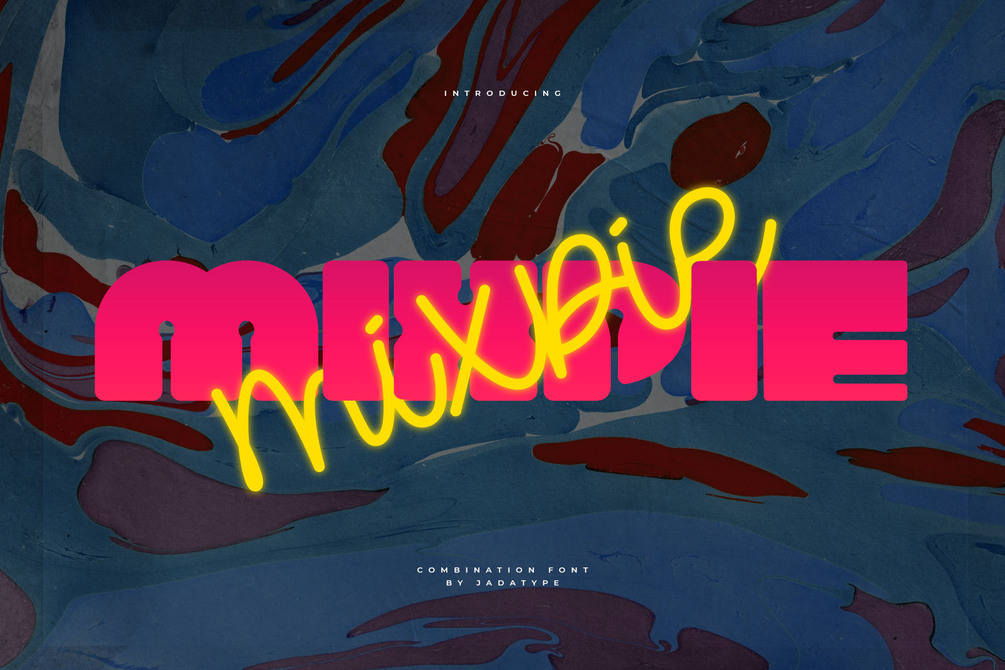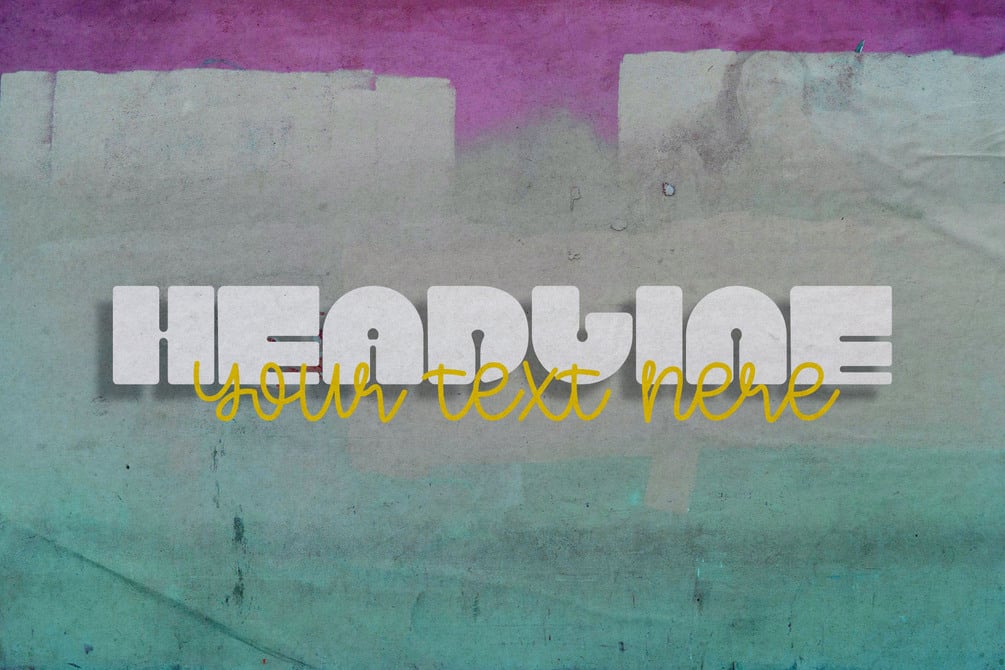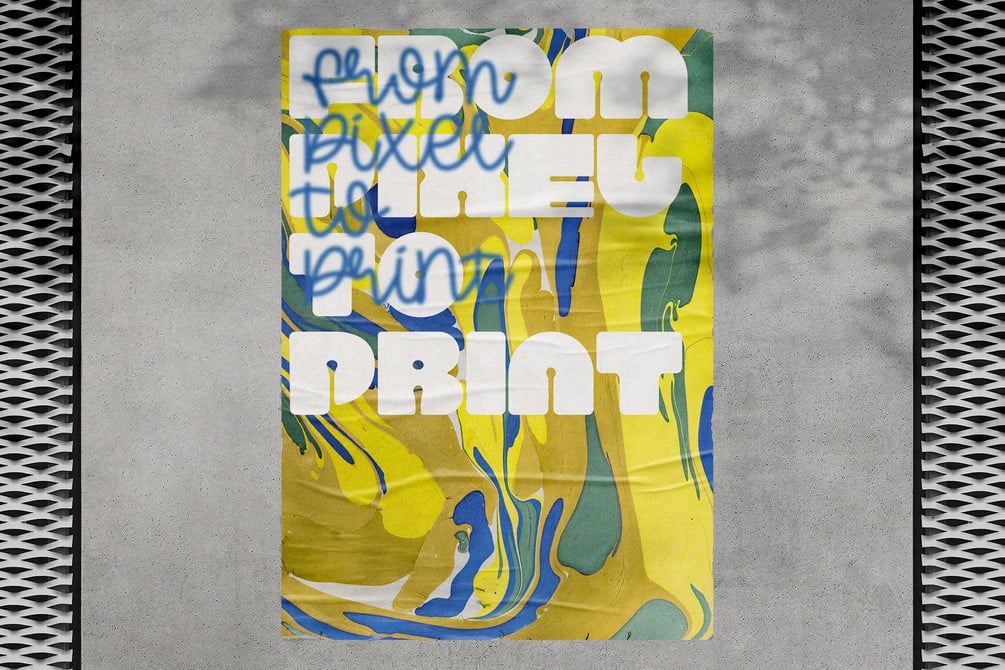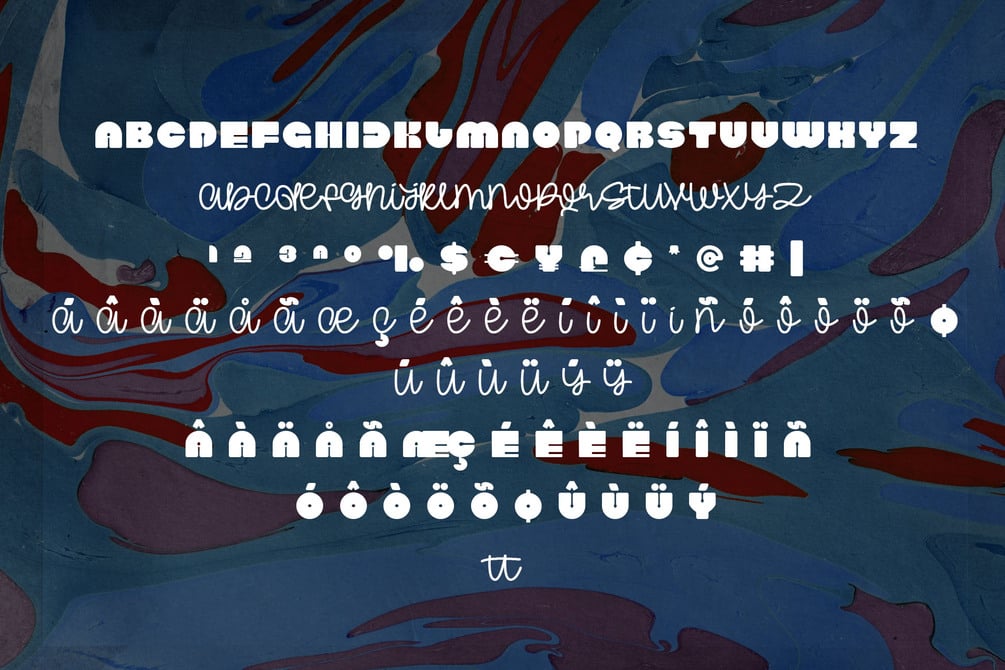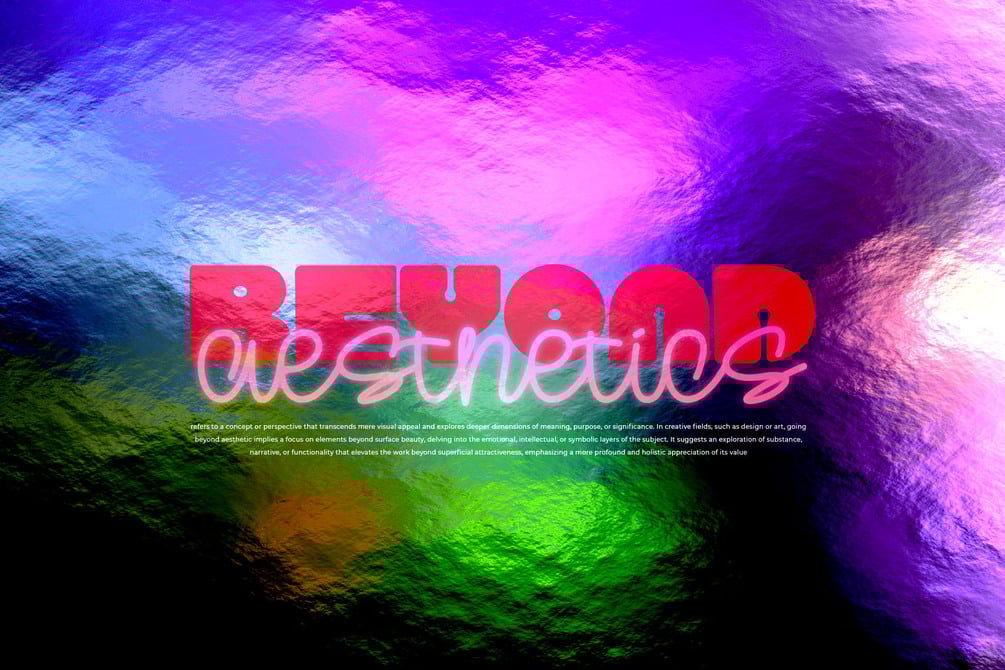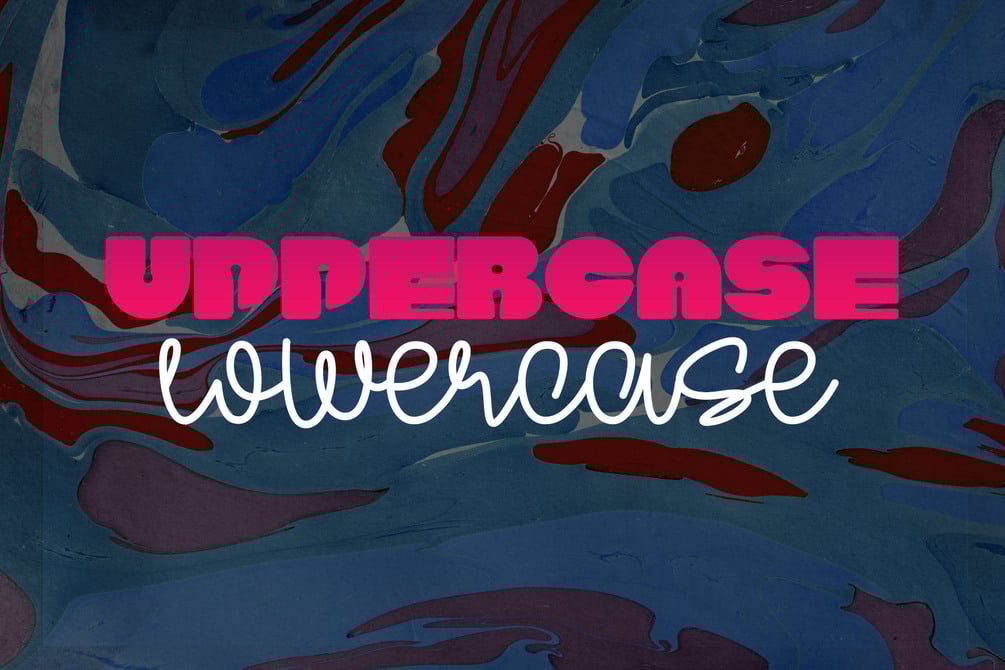
Mixpie Font
Mixpie is a combination display font that comes with a bold and script combination style. suitable for product, Branding, social media, logotype and so on. contains standard English letters, numbers, punctuation, and several accents that support multilingualism.